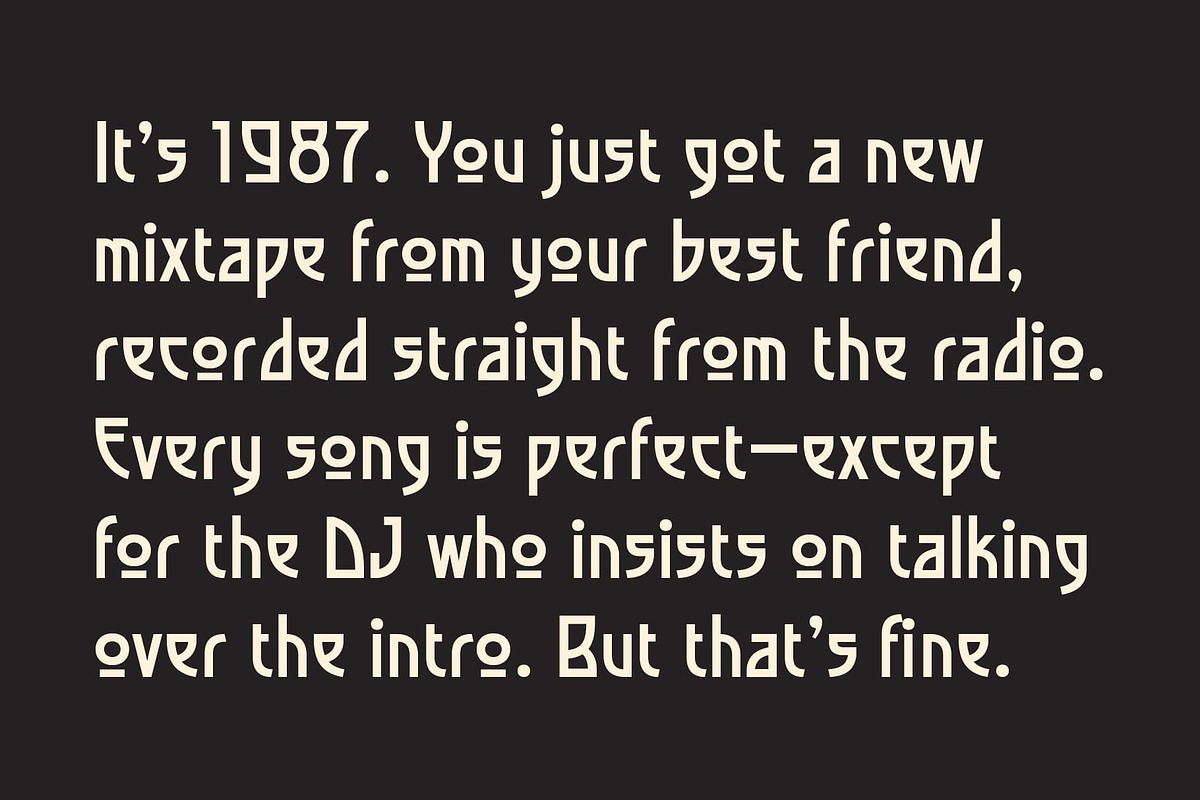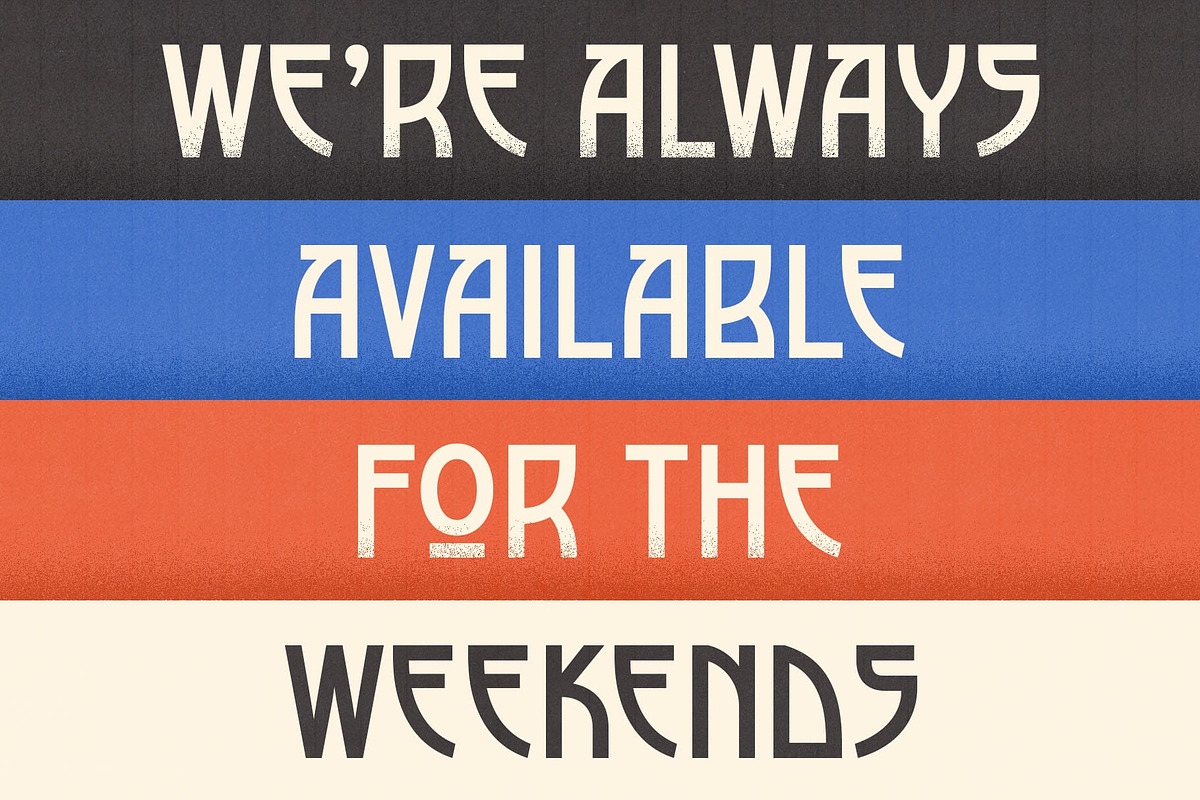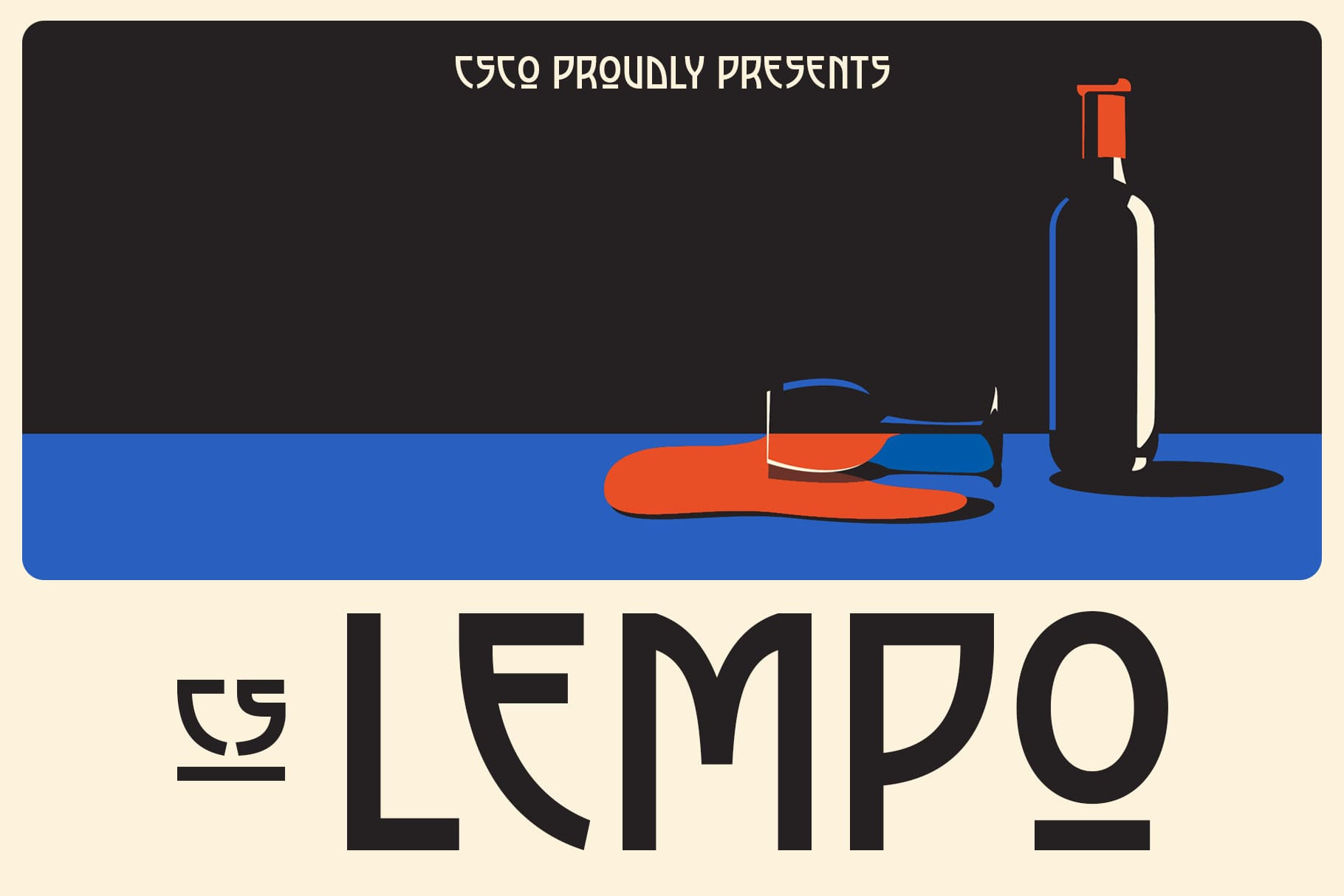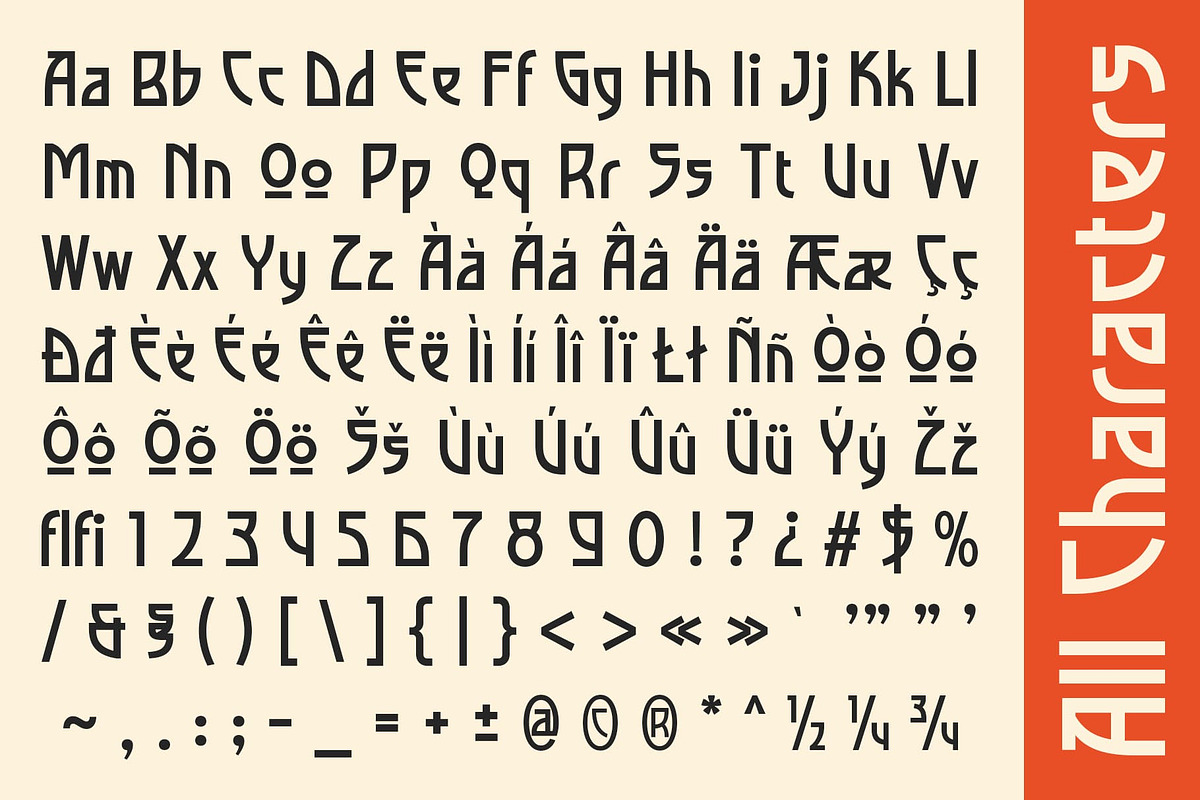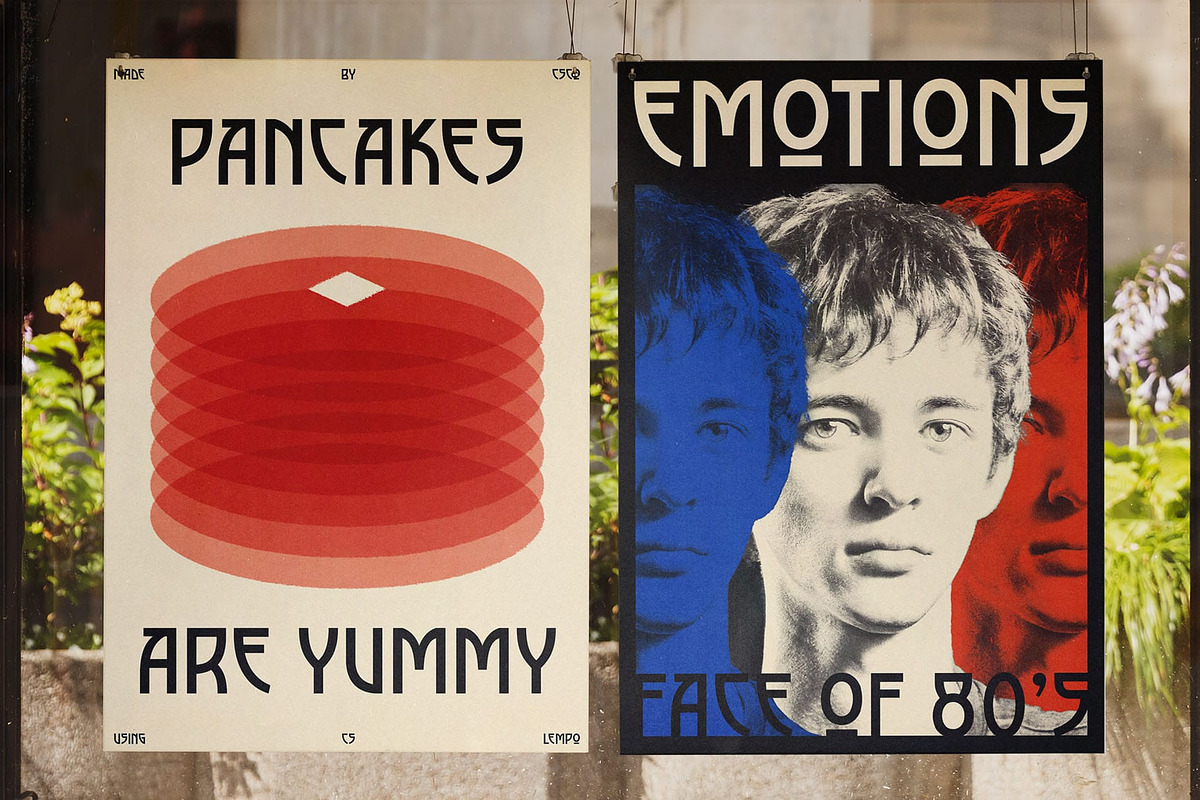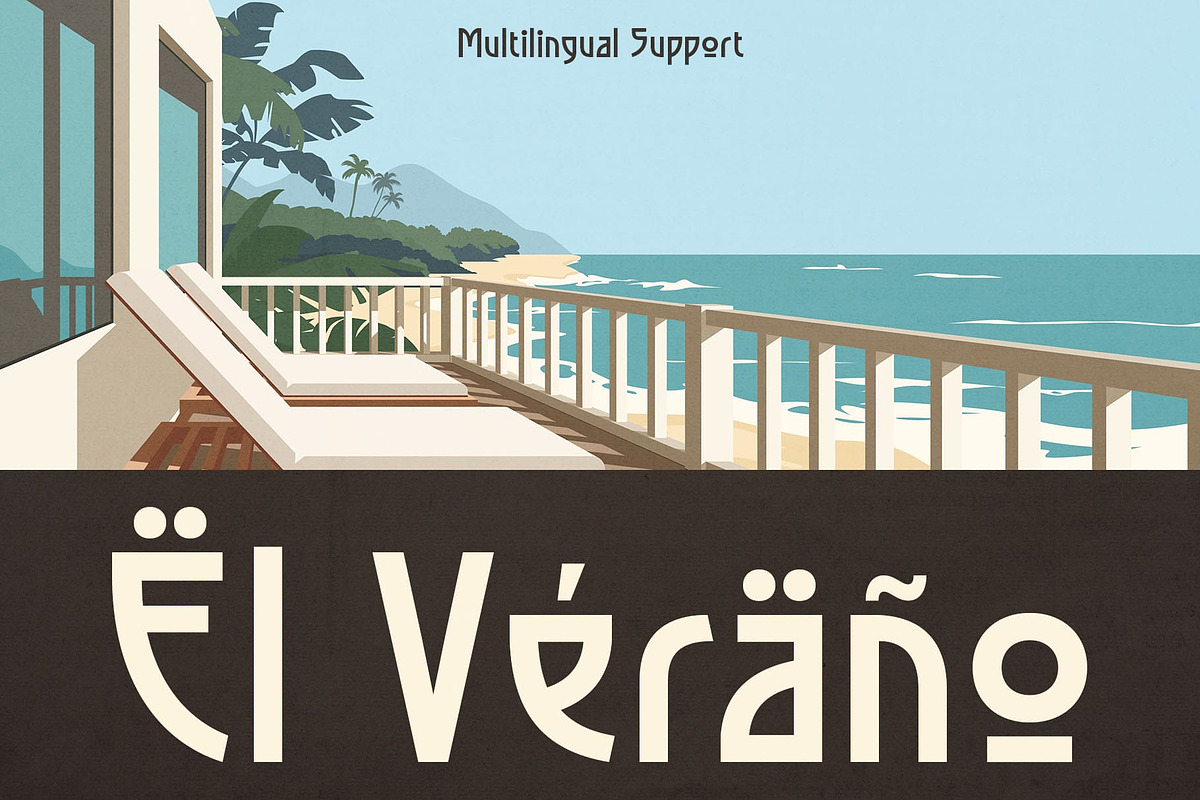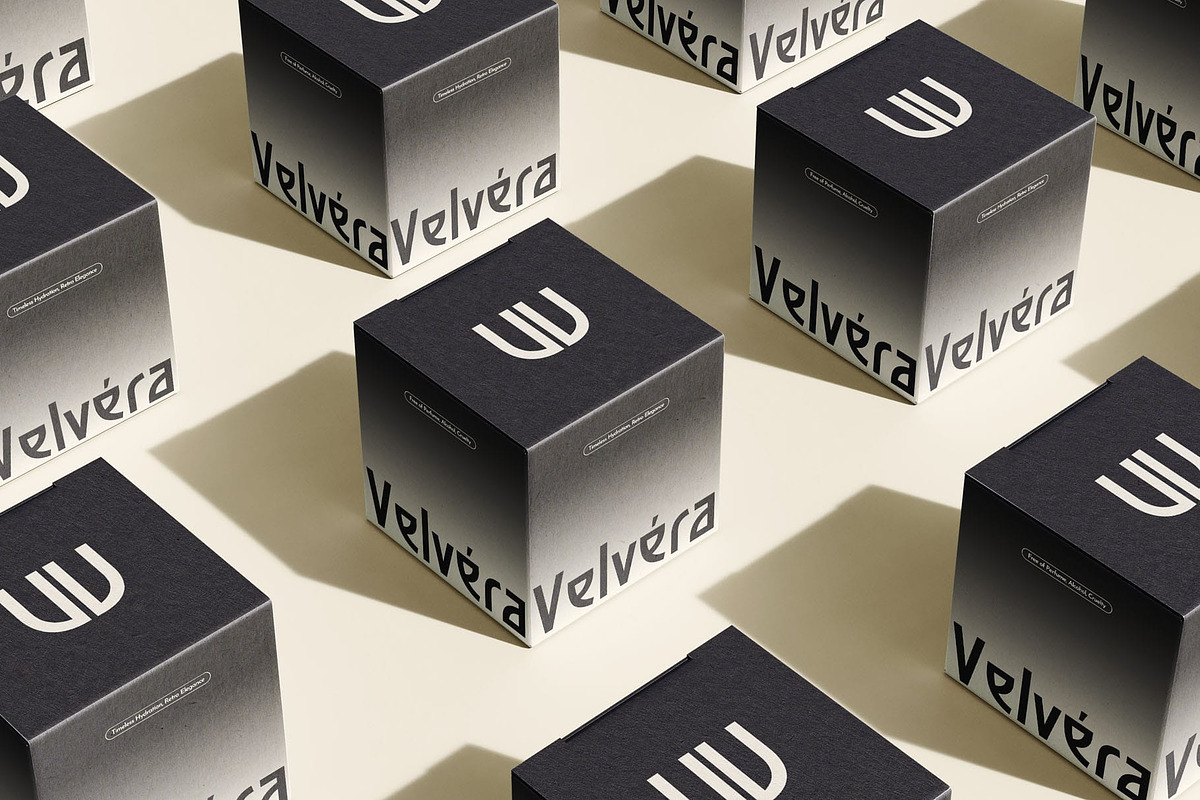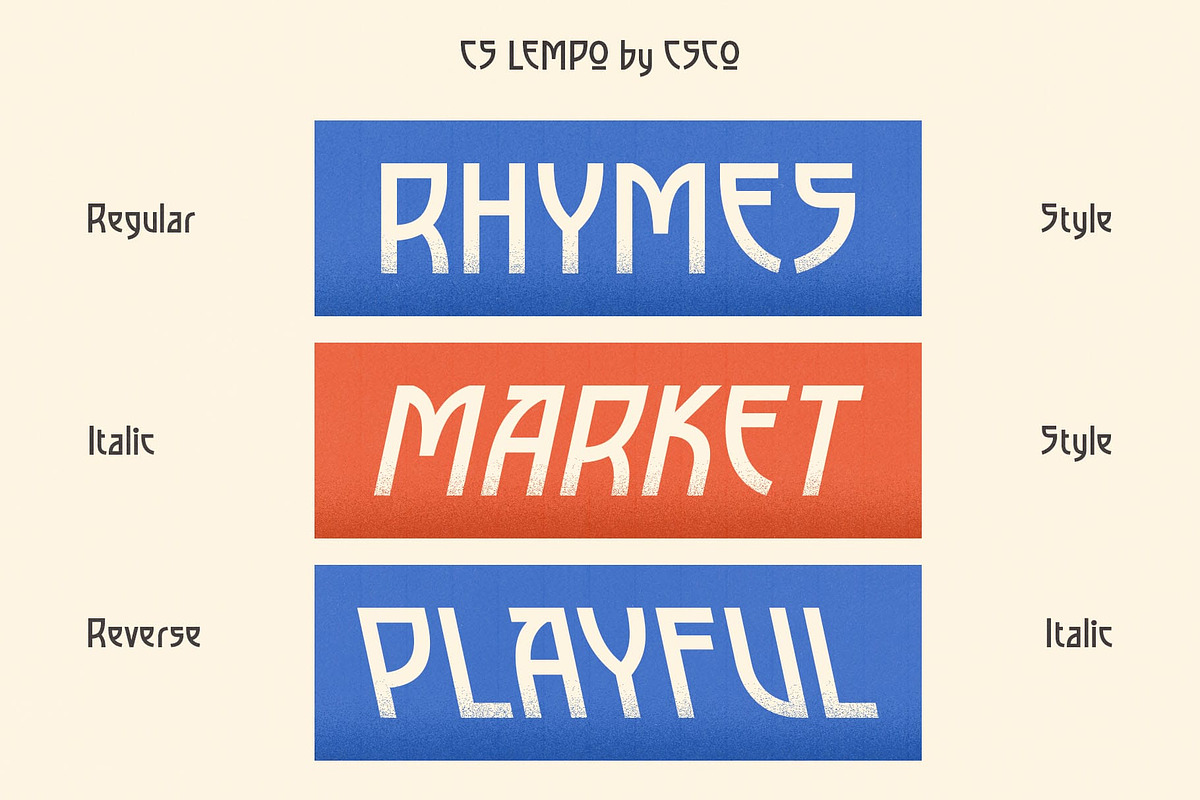
CS Lempo – Art Deco Font
CS Lempo – Art Deco Font: Modern Art Deco with Timeless Elegance
Geometric & Symmetrical Design CS Lempo is a modern sans-serif display font with an Art Deco style that effortlessly blends the geometric precision and symmetry typical of Art Deco with the clean simplicity of a sans-serif design. The bold lines and square shapes, paired with refined details, create a font that radiates a sense of luxury while maintaining a sleek and contemporary feel. This makes it the perfect choice for designs that aim to merge vintage charm with modern flair, creating an elegant yet bold statement.
Bold & Luxurious Appeal With its striking contrast of bold lines and clean shapes, CS Lempo offers a sophisticated aesthetic that exudes confidence and class. It is ideal for projects requiring a stylish and refined touch, whether you’re designing logos, posters, or branding elements. The font’s Art Deco influences bring a touch of glamour, making it suitable for high-end designs, including fashion branding, luxury products, and vintage-inspired event promotions. Its refined presence makes it a powerful choice for establishing a high-class visual identity.
Perfect for Branding & Vintage Designs CS Lempo is a perfect fit for brands or projects looking to evoke the timeless elegance of the Art Deco era with a contemporary update. Its bold and symmetrical design elements add strength and uniqueness to any visual identity.
- CS Lempo Regular
- CS Lempo Italic
- CS Lempo Reverse Italic